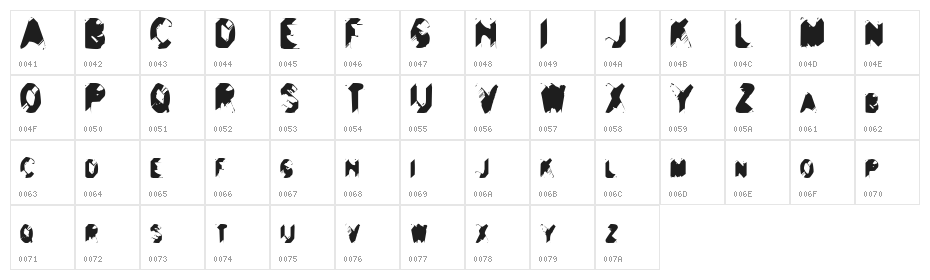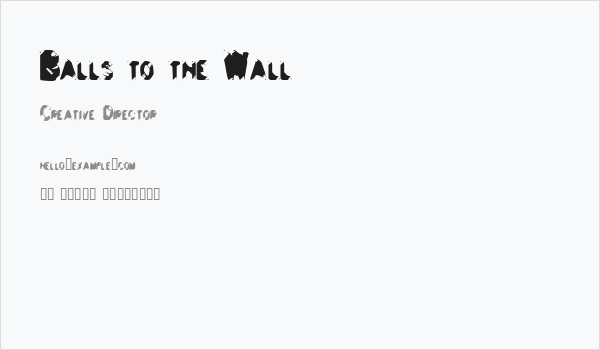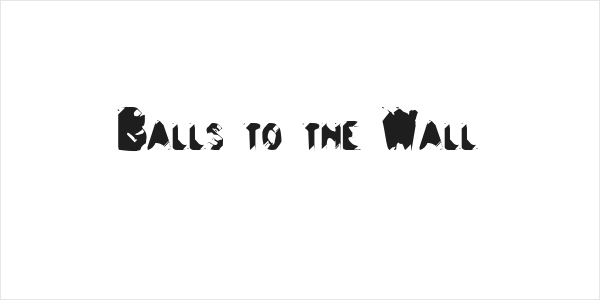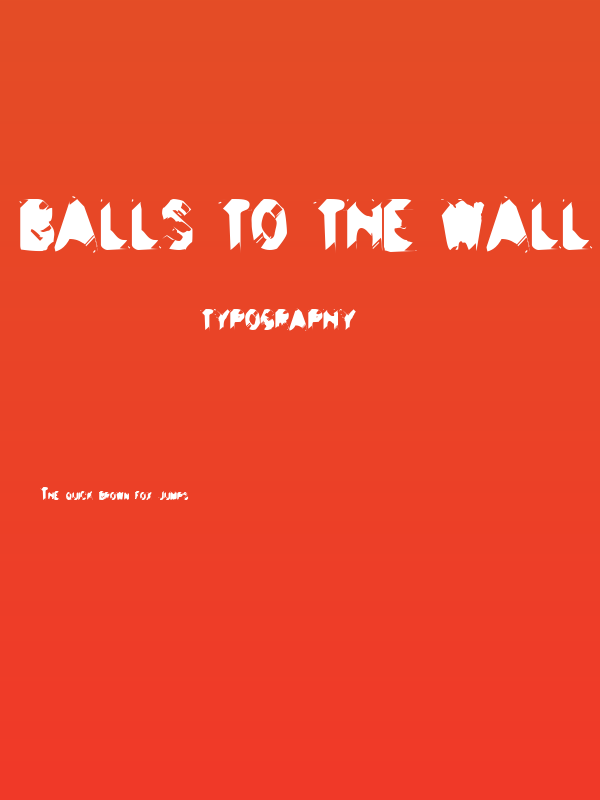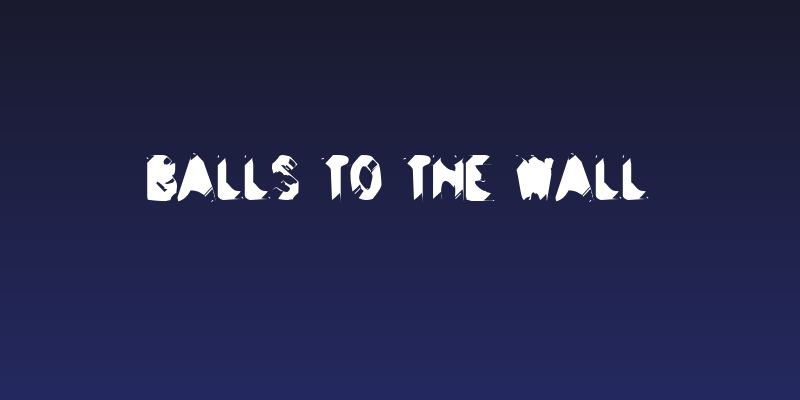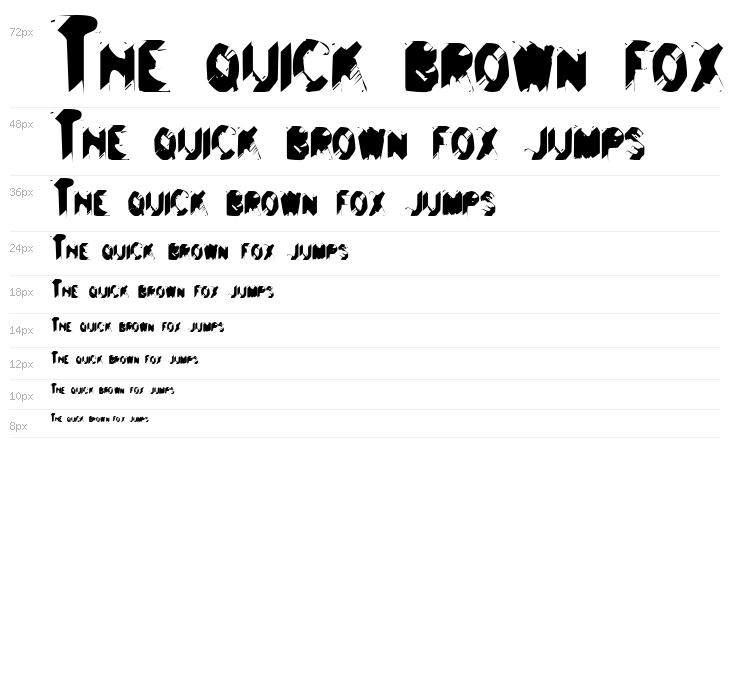
Balls to the Wall Font
Balls to the Wall Description
This font features a bold and aggressive design with a distressed, grunge-like appearance. The characters are heavily stylized with jagged edges and irregular shapes, giving them a dynamic and chaotic feel. The uppercase letters are particularly striking, with a strong presence that commands attention. The overall look is reminiscent of graffiti or urban street art, making it ideal for projects that require a raw and edgy aesthetic. The font lacks traditional serifs, opting instead for a more modern and unconventional approach. Its unique style makes it suitable for creative and daring design projects.
| Overall Style | Modern, Urban, Edgy |
| Proposed Projects | Album covers, streetwear branding, event posters, skateboarding graphics, and urban-themed designs. |